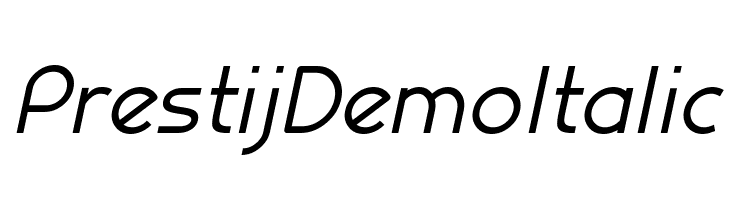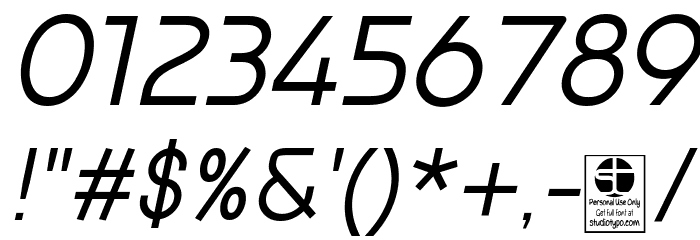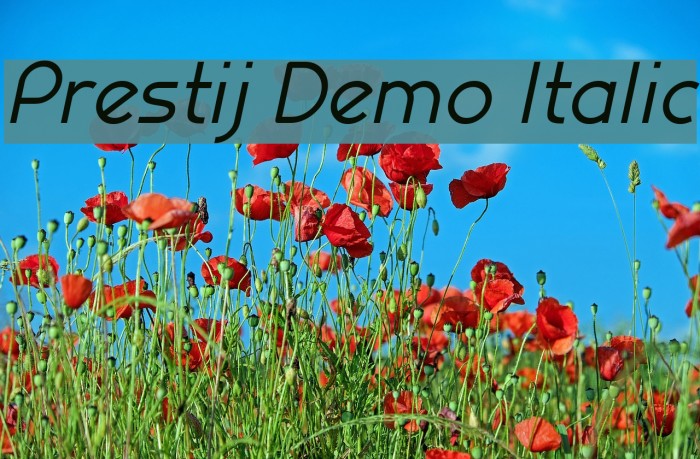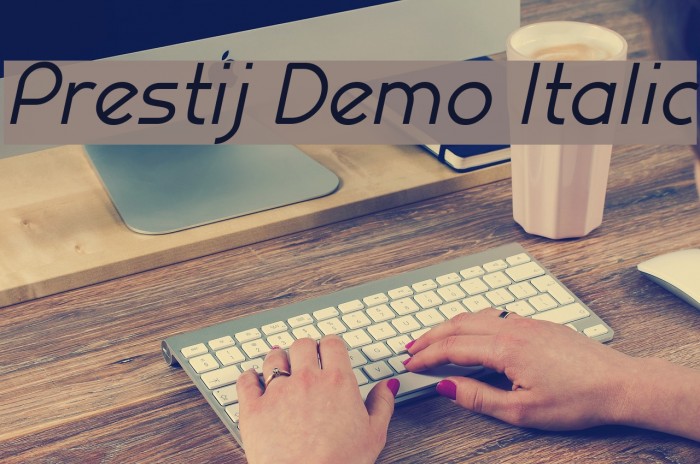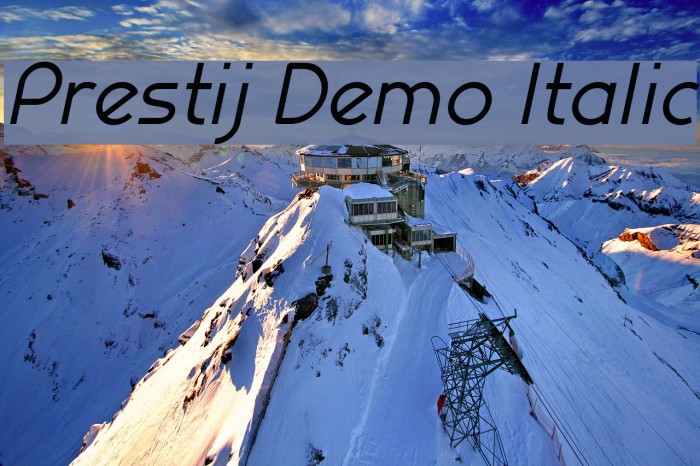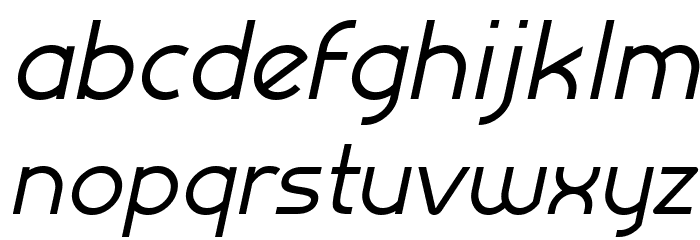
Prestij Demo Italic Font
Prestij Demo Italic Description
This font exhibits a sleek and modern design with a slight italic slant, giving it a dynamic and forward-moving appearance. The characters are crafted with smooth curves and a consistent stroke width, contributing to a clean and professional look. The uppercase letters are well-proportioned, while the lowercase letters maintain a harmonious balance with their counterparts. The numerals are clear and legible, making them suitable for various applications. Special characters are included, offering versatility in design projects. Overall, this font combines elegance with readability, making it an excellent choice for contemporary design needs.
A sleek, modern italic font with smooth curves and consistent stroke width from Uncategorized fonts.
- Proposed Projects: Ideal for branding, advertising, digital media, and editorial design projects.
- Use Case: Headlines, Logos, Digital Media